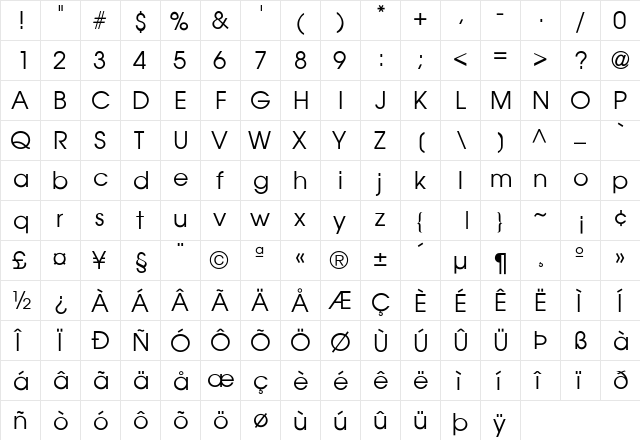
AvantGarde-Book Regular
Design Context for AvantGarde-Book Typeface
AvantGarde-Book takes a measured approach to typography — its balanced proportions and neutral character make it a reliable workhorse for both digital and print work.